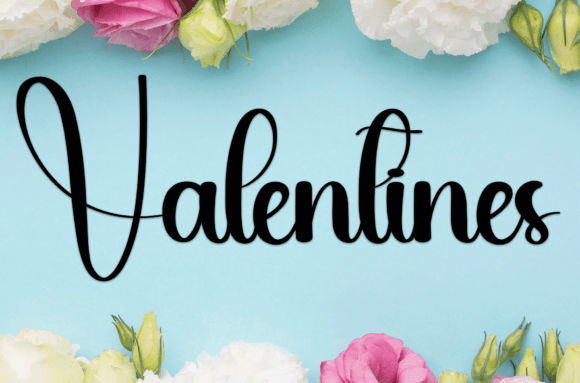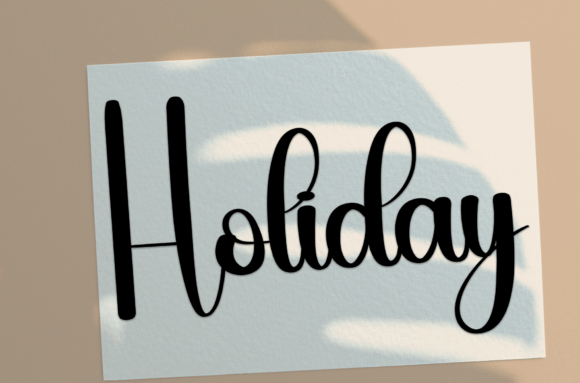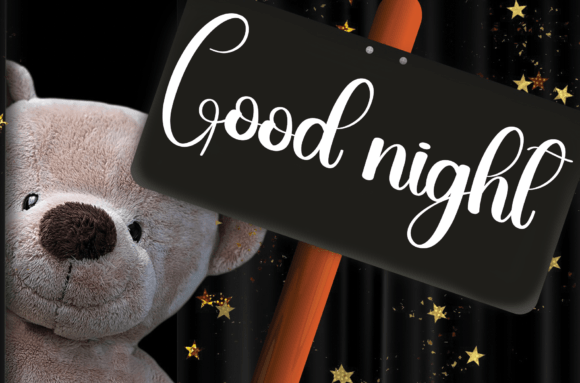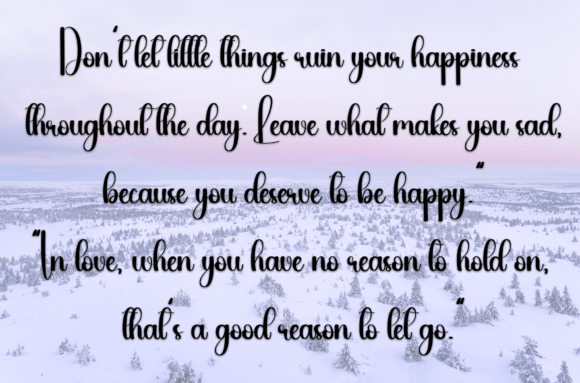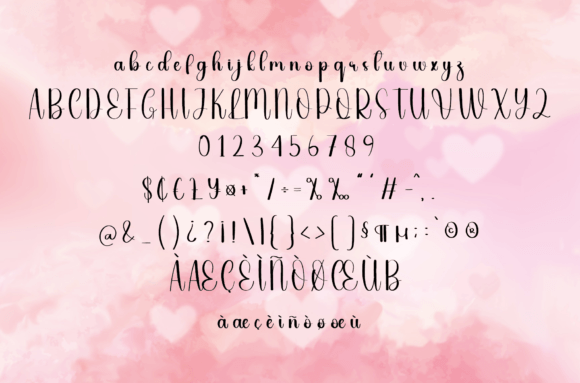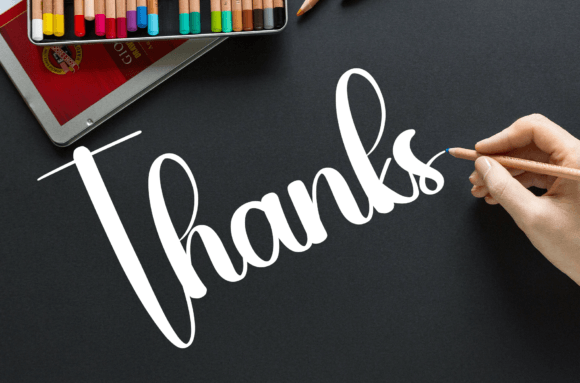
Introduction to Kleo Blue Font
Have you ever found yourself scribbling down a message on a card or a poster, only to realize that your handwriting just isn’t as cute as you thought it was? We’ve all been there! That’s why we love discovering fonts like Kleo Blue Font, which can add a touch of whimsy and personality to our designs.
Kleo Blue Font is a delightful, handwritten font that’s perfect for designers looking to add a fun and creative twist to their projects. Whether you’re working on a wedding invitation, a birthday card, or any other design that needs a playful touch, Kleo Blue Font is a valuable resource that’s sure to impress.
Key Features of Kleo Blue Font
- Unique, modern font style with a transparent background for versatility
- Perfect for designers and artists working on projects requiring a touch of sophistication
Honest Review: Kleo Blue Font
I recently had the chance to work with the Kleo Blue Font, and I must say it’s been a game-changer for my creative project. This font is a high-quality design resource that can elevate any project with its sleek and modern design.
- ✨ Unique and modern design that sets my project apart from the rest
- ⚠️ Limited font styles and variations available
- ⚠️ Not ideal for projects that require a transparent background, as the font doesn’t support it
Overall, I’m really impressed with the Kleo Blue Font. It’s a great design resource that’s perfect for creative projects, and its high-quality design and free download option make it a great value. While it may not be suitable for every project, I would definitely recommend it to anyone looking for a modern and sleek font.
Tips for Getting the Most Out of Kleo Blue Font
To maximize the effectiveness of the Kleo Blue Font, use it in combination with other design elements that complement its elegant and sophisticated style. Experiment with different font sizes, colors, and combinations to achieve the desired look.
The Kleo Blue Font is commonly used for wedding invitations, business cards, and other professional documents. Its high-quality design and elegant style make it an excellent choice for any creative project that requires a touch of sophistication.